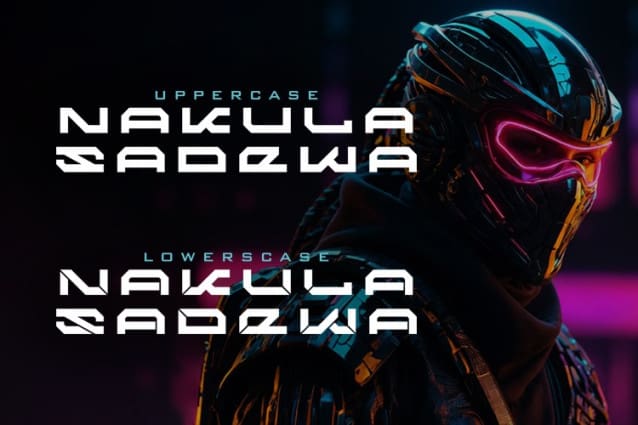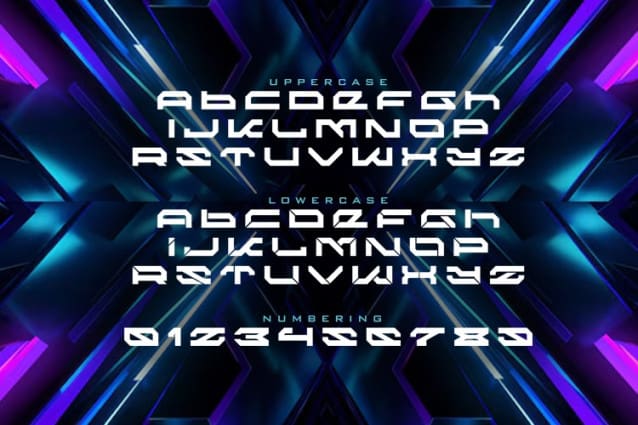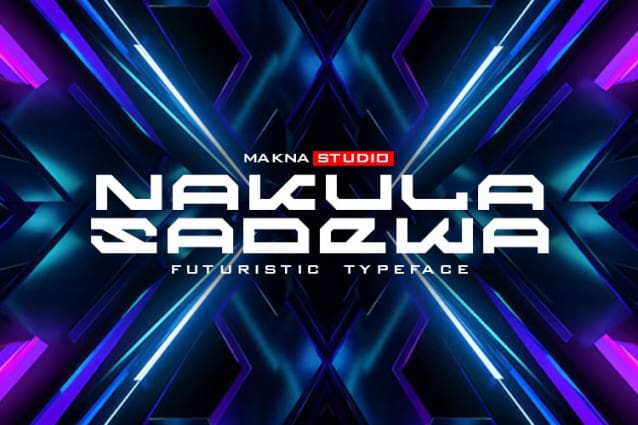
Nakula Sadewa Font
Nakula Sadewa Font is a futuristic font with a bold, sleek design, perfect for movie titles, gaming graphics, modern branding, and tech-inspired visuals.